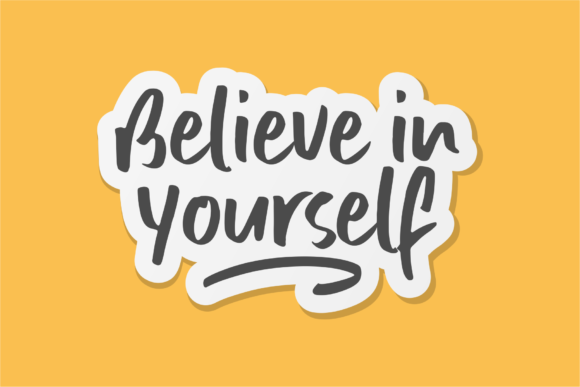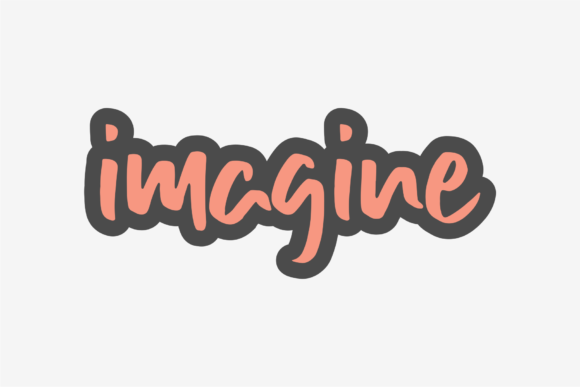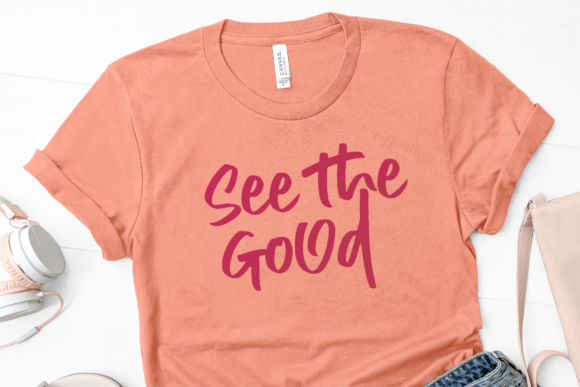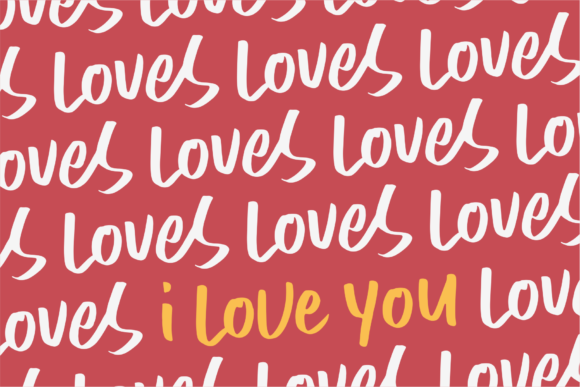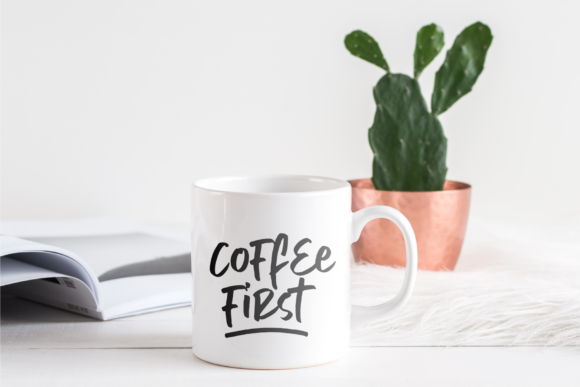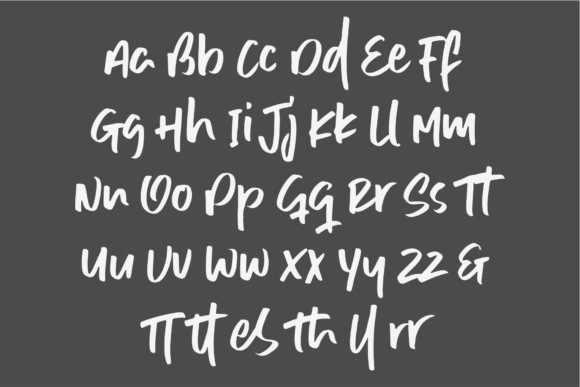
Discover the Charm of Gilligan Coast Font: Elevate Your Designs with a Unique Handwritten Style
Are you tired of using the same old fonts in your designs? Look no further than the Gilligan Coast font, a truly unique and relaxed handwritten font that is sure to add a touch of personality to any creative project. With its flowing and friendly style, Gilligan Coast is the perfect match for designers and crafters looking to add a dash of whimsy and charm to their work.
The Characteristics of Gilligan Coast Font
Gilligan Coast is a one-of-a-kind font that boasts a range of characteristics that set it apart from other fonts. Its most notable feature is its incredibly relaxed and casual feel, which gives it a friendly and approachable vibe. The font’s flowing style makes it perfect for use in a variety of design applications, from logos and branding to invitations and crafts.
One of the key benefits of Gilligan Coast is its versatility. This font can be used in a wide range of creative projects, from formal events to casual gatherings. Whether you’re designing a wedding invitation, a party flyer, or a social media graphic, Gilligan Coast is the perfect choice.
The Benefits of Using Gilligan Coast Font
So why choose Gilligan Coast font for your next design project? Here are just a few benefits of using this unique and versatile font:
- Unique and eye-catching: Gilligan Coast font is unlike any other font out there. Its distinctive style is sure to grab attention and make your designs stand out from the crowd.
- Versatile: Whether you’re designing a formal or informal project, Gilligan Coast font is the perfect choice. Its relaxed and casual feel makes it suitable for use in a wide range of applications.
- Easy to read: Despite its unique style, Gilligan Coast font is incredibly easy to read. This makes it perfect for use in body text, headings, and titles.
- Customizable: With Gilligan Coast font, you can add your own personal touch to your designs. Experiment with different colors, sizes, and styles to create a truly unique look.
How to Use Gilligan Coast Font in Your Designs
Using Gilligan Coast font in your designs is easy. Here are a few tips to get you started:
- Pair it with other fonts: Gilligan Coast font pairs perfectly with other fonts, such as sans-serif fonts like Arial or Helvetica. Experiment with different combinations to create a unique look.
- Use it in headings and titles: Gilligan Coast font is perfect for use in headings and titles. Its flowing style makes it eye-catching and engaging.
- Add a personal touch: Use Gilligan Coast font to add a personal touch to your designs. Experiment with different colors and styles to create a truly unique look.
Gilligan Coast Font in the World of Design
Gilligan Coast font is not just a font – it’s a design statement. With its unique and relaxed style, it’s perfect for designers and crafters who want to add a touch of personality to their work. Whether you’re designing a logo, a website, or a craft project, Gilligan Coast font is the perfect choice.
In the world of design, fonts play a crucial role in communicating a message. With Gilligan Coast font, you can add a touch of whimsy and charm to your designs, making them more engaging and memorable.
In conclusion, Gilligan Coast font is a unique and incredibly relaxed handwritten font that is perfect for designers and crafters looking to add a touch of personality to their work. With its flowing and friendly style, it’s versatile and easy to use, making it the perfect match for a wide range of creative projects. So why settle for the same old fonts when you can use Gilligan Coast font to elevate your designs and make them truly unforgettable?
Whether you’re a seasoned designer or a crafty DIY enthusiast, Gilligan Coast font is sure to become a favorite in your design arsenal. So go ahead, give it a try, and see the difference it can make in your designs!